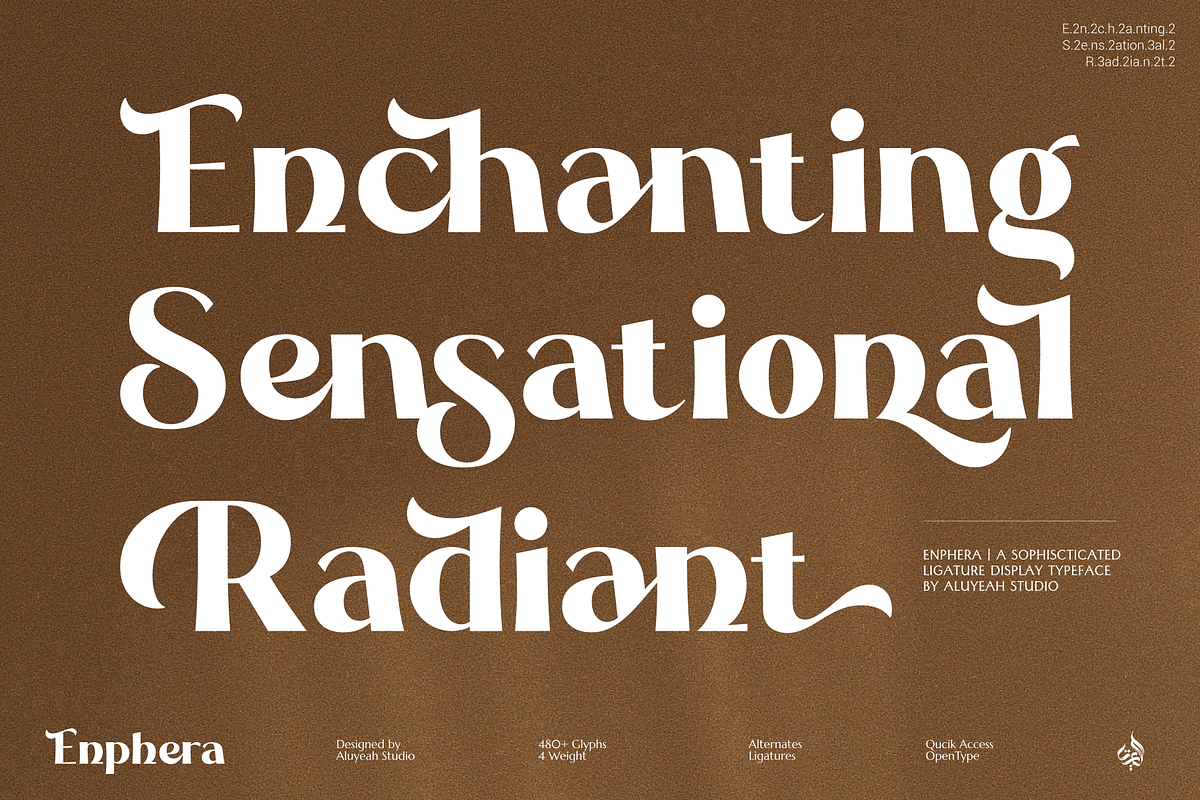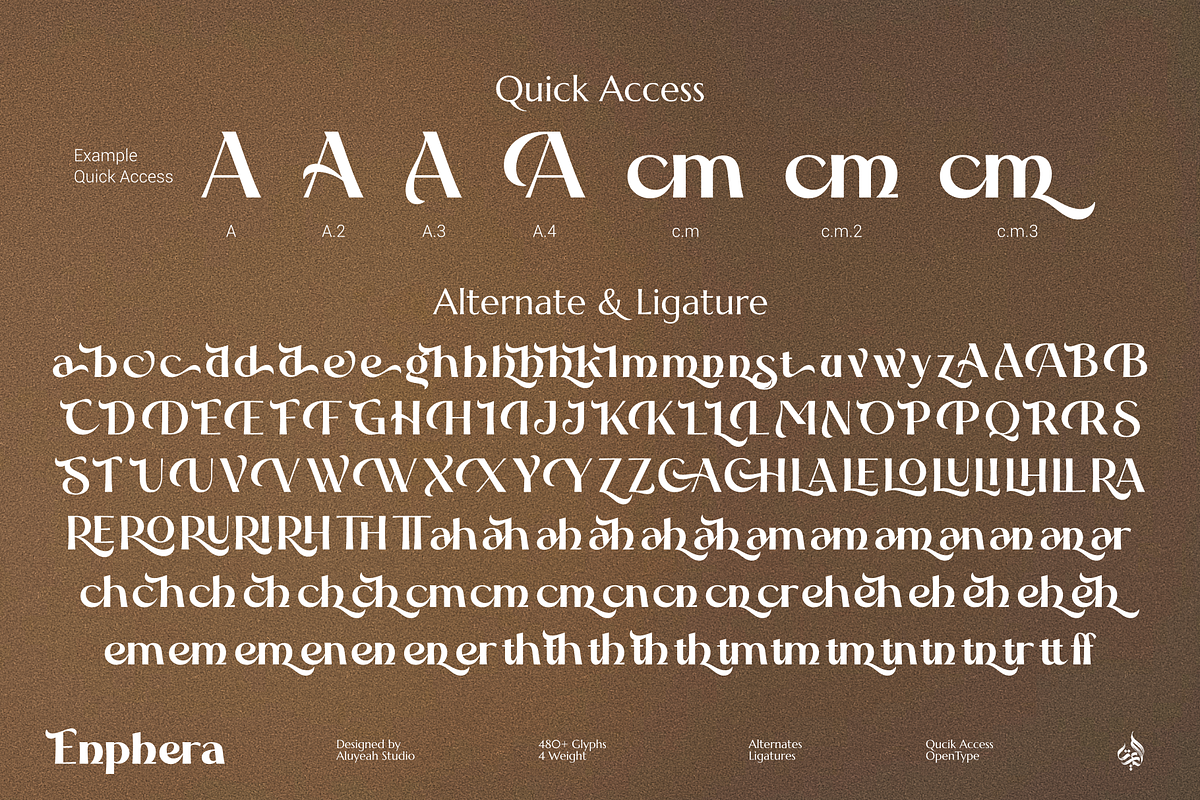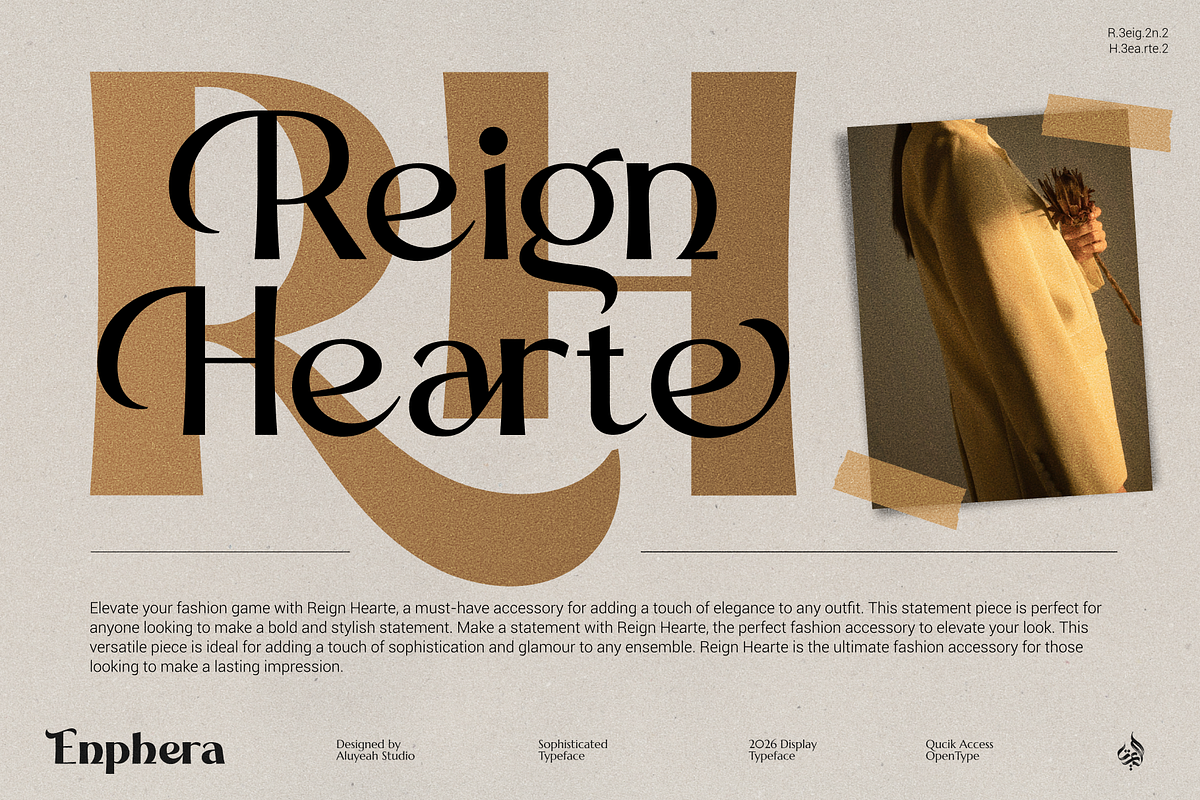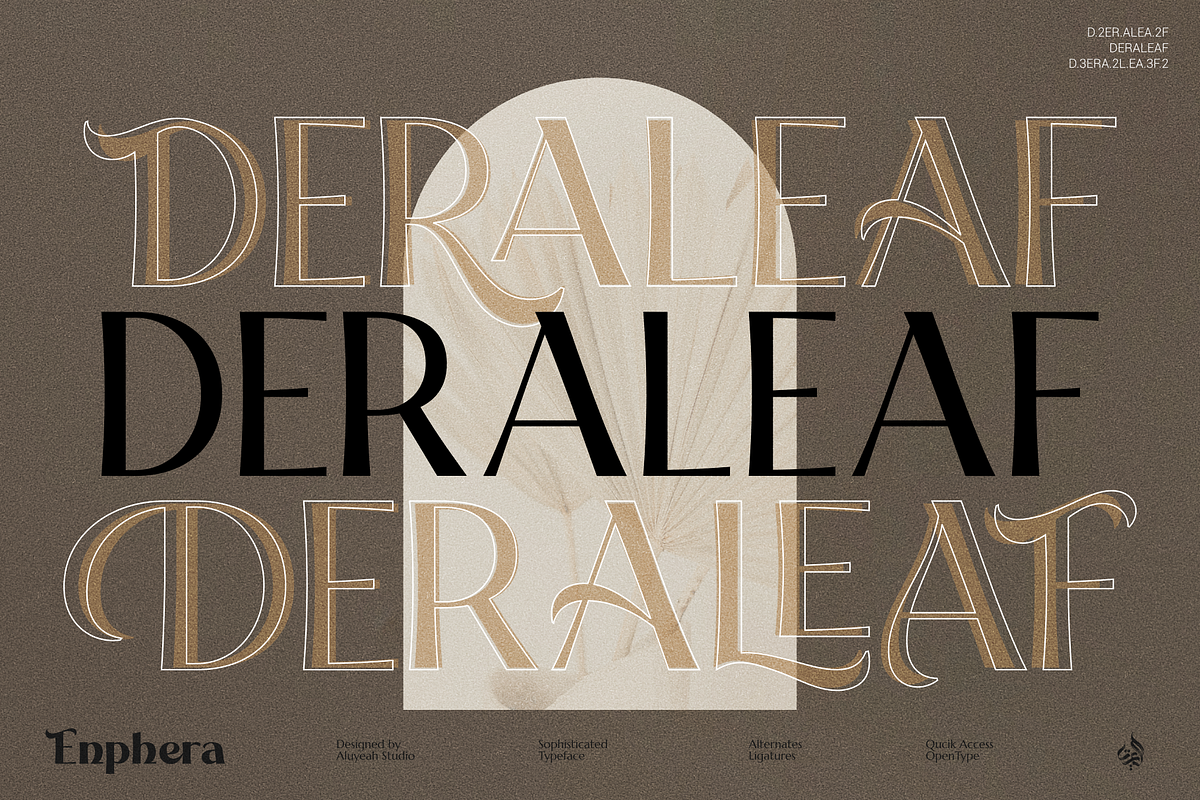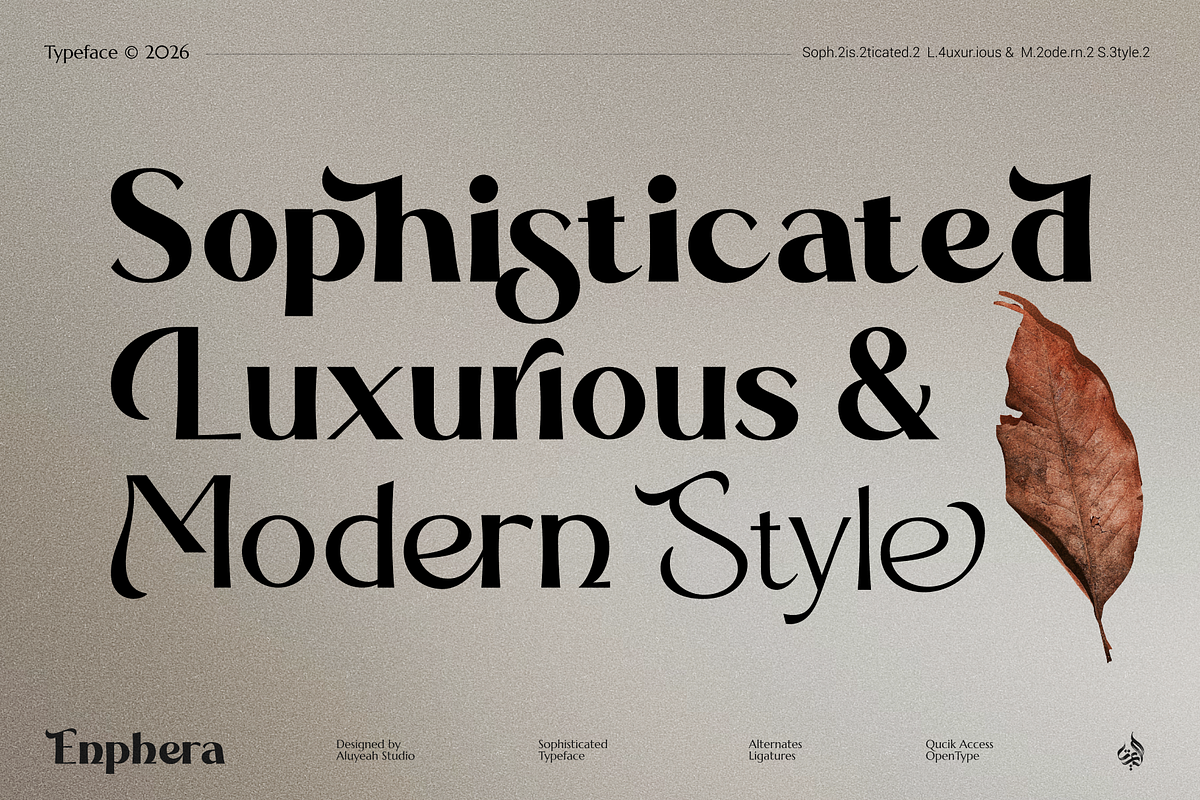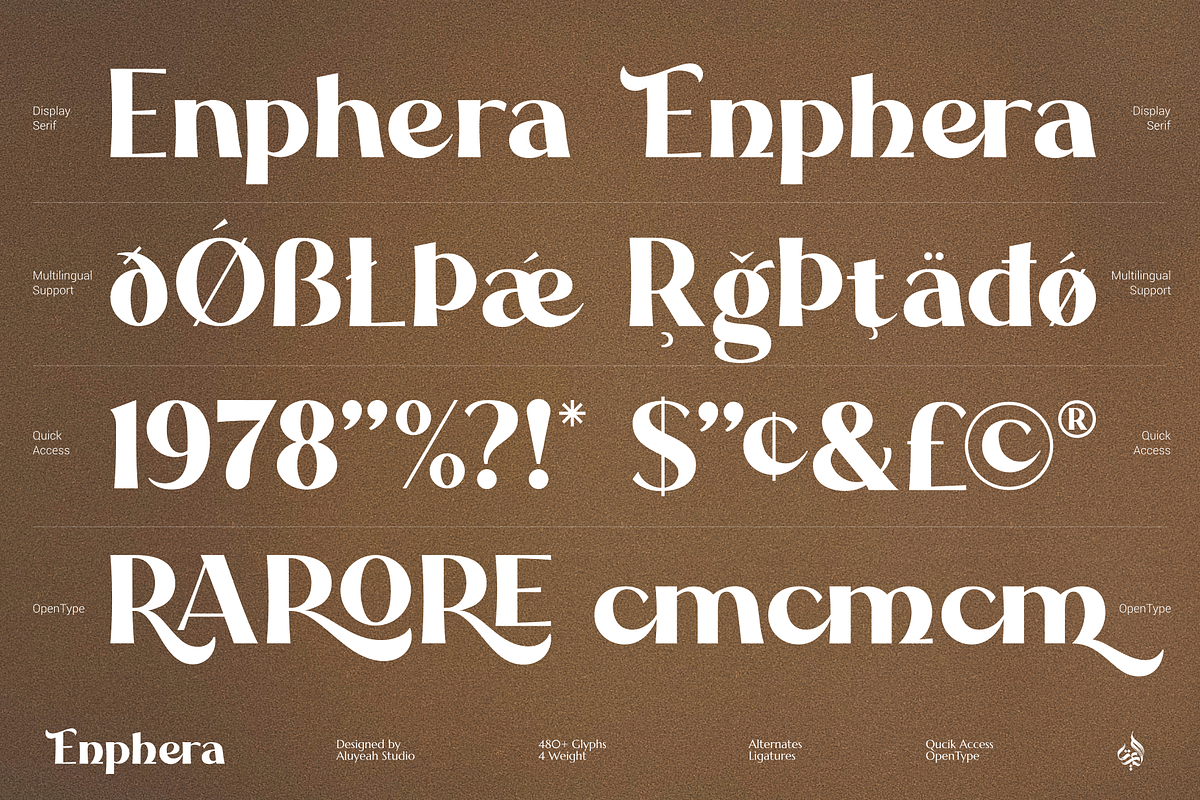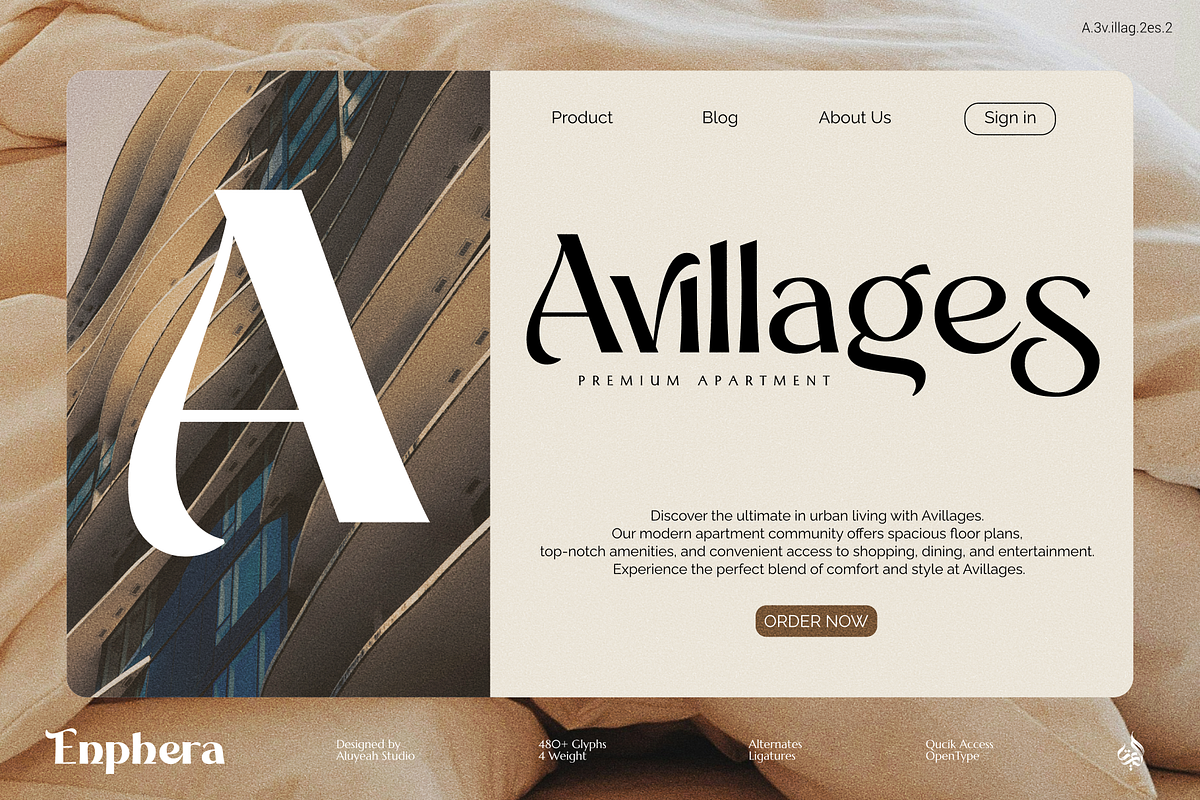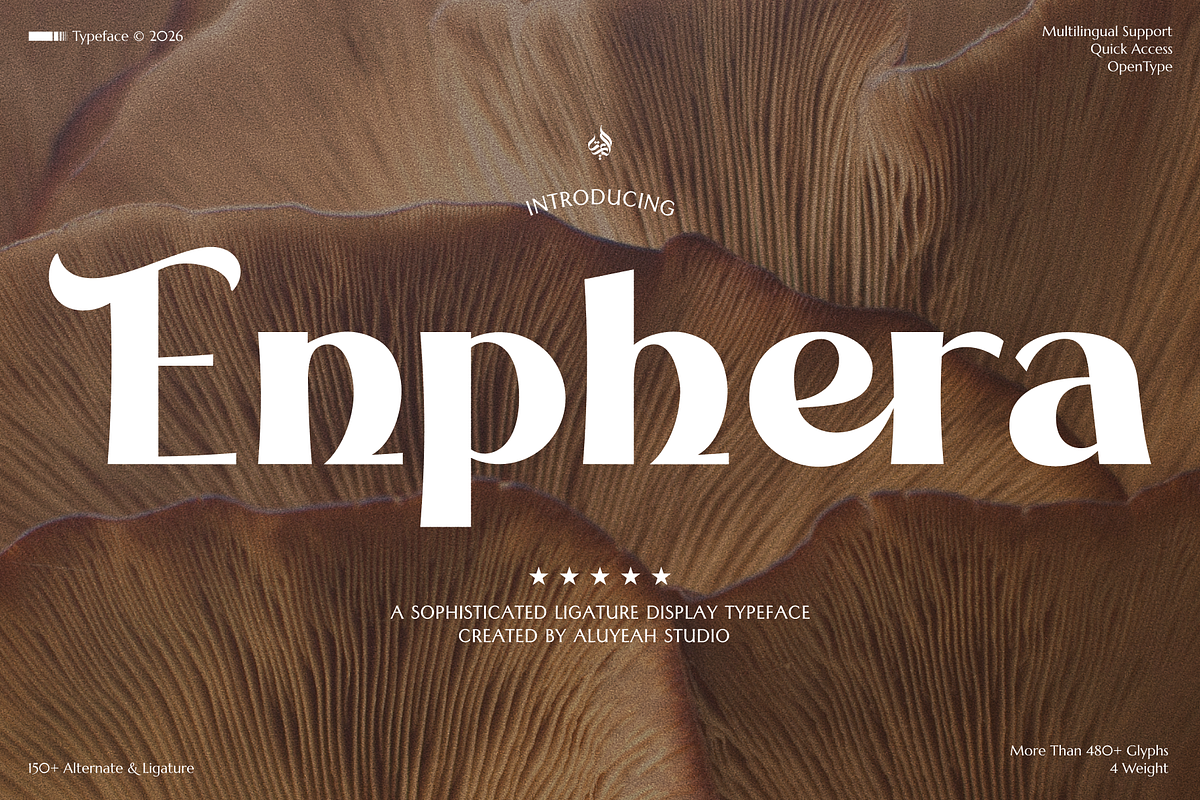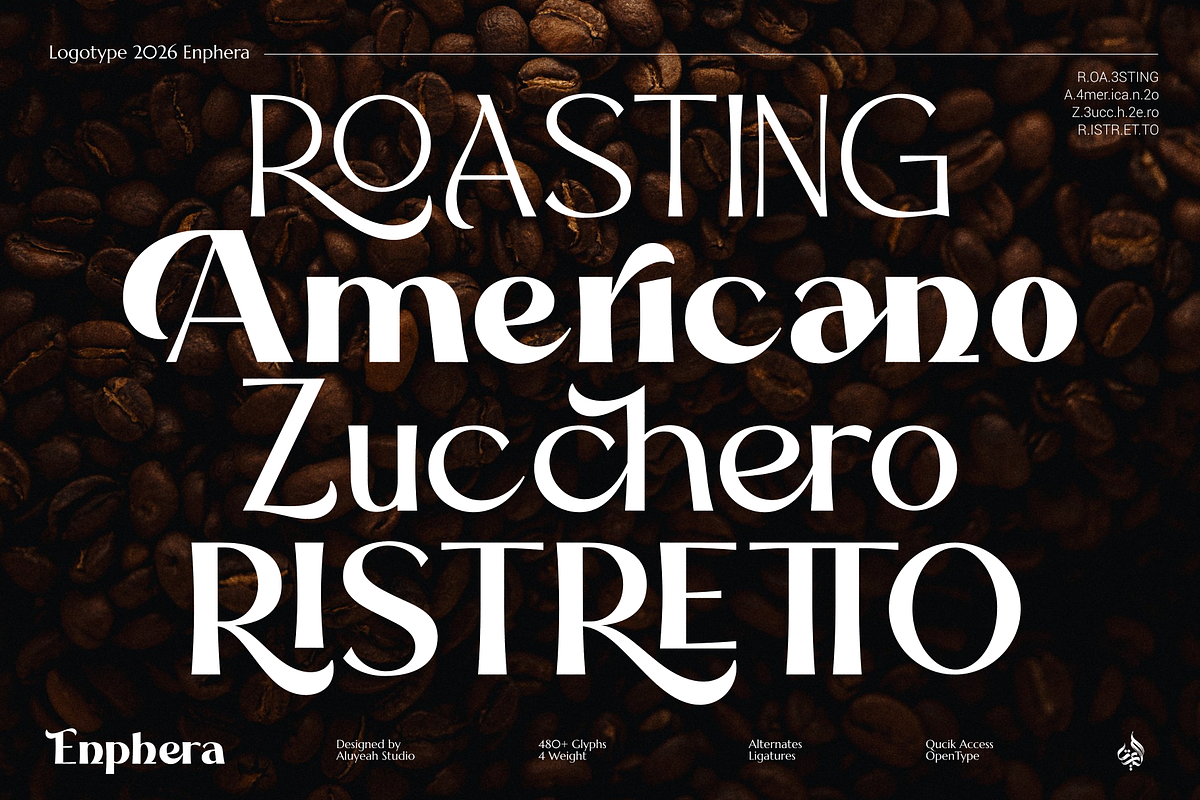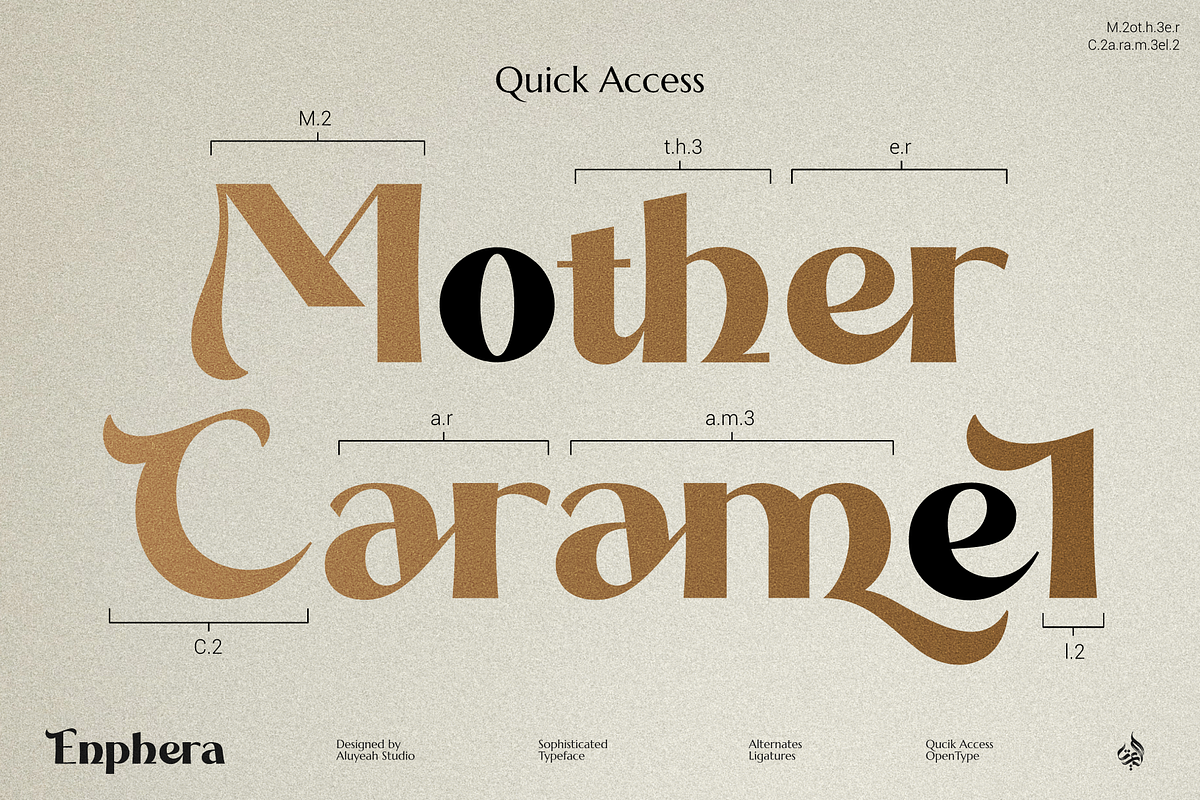
Enphera
Introducing Enphera - A Sophisticated Ligature Display Typeface!
We love crafting fonts that are visually appealing and user-friendly. Our goal is to ensure anyone can easily use our fonts, regardless of their design background. By providing quick access features, We create fonts that are easy to work with. Making design accessible and enjoyable for everyone drives our passion, and we hope my fonts bring creativity to your projects!
Our brand new display font Enphera, a stylish ligature display typeface that exudes both sophistication and versatility. Featuring 4 weights, more than 480+ glyphs, OpenType, multilingual, and quick access to over 150+ alternates and ligatures. Ideal for crafting captivating designs, Enphera is a must-have for any designer looking to elevate their work.
- OpenType support
- Multilingual support (67 languages)
- Quick Access - You can easily call alternates using quick access combination like A.2 A.3 A.4 c.h c.h.2 c.h.3 etc. To get the preview-like result, you can use the quick access combination E.2n.2ph.3e.ra